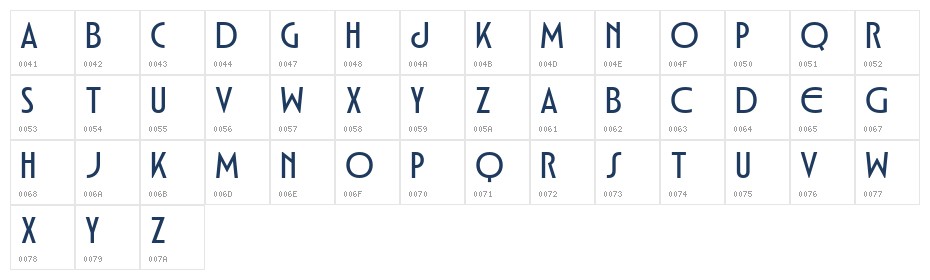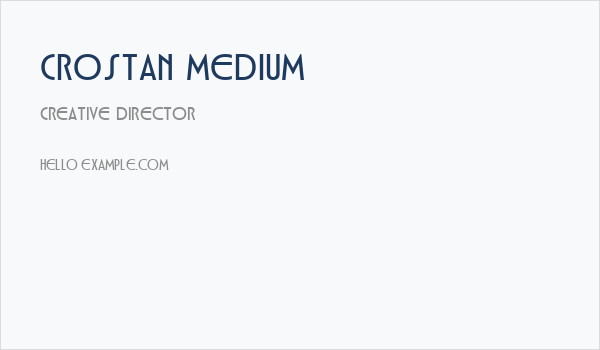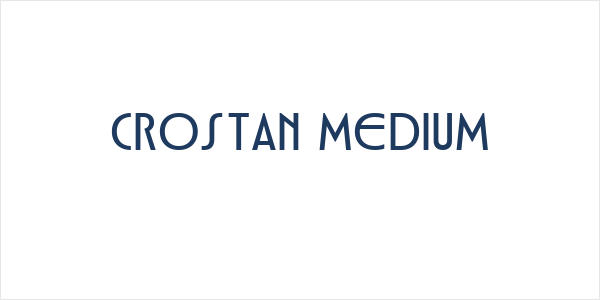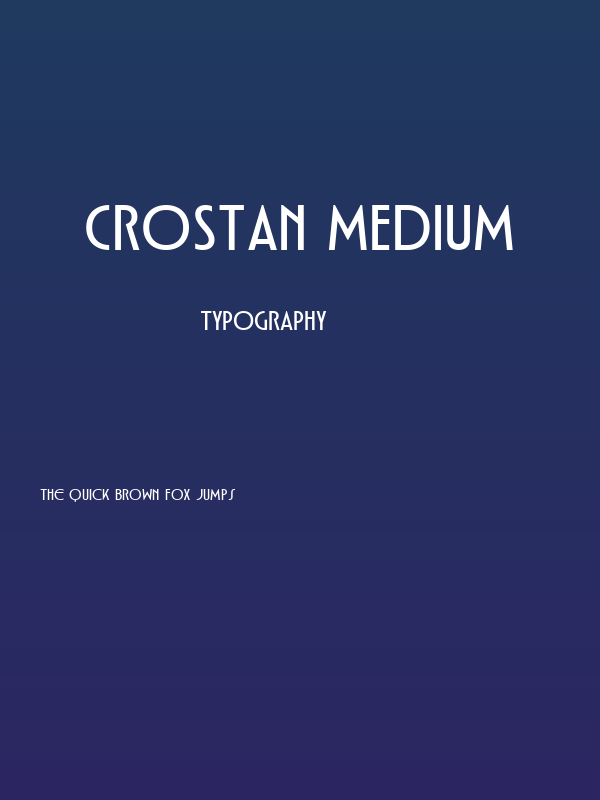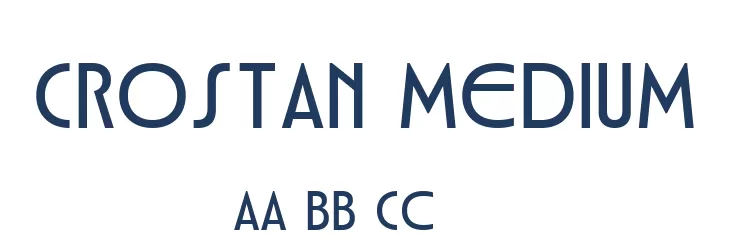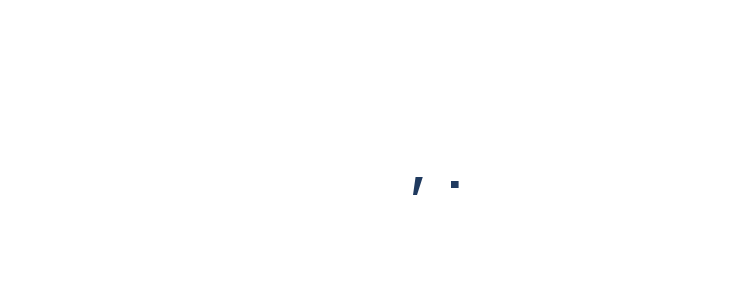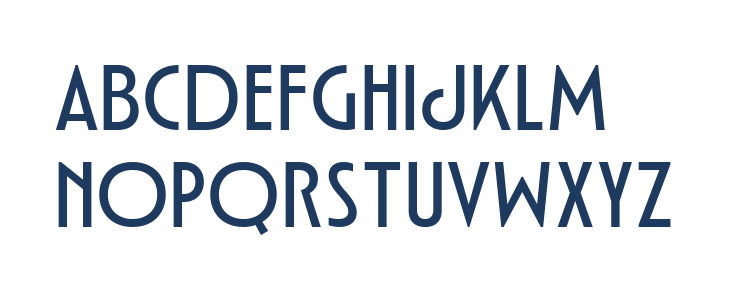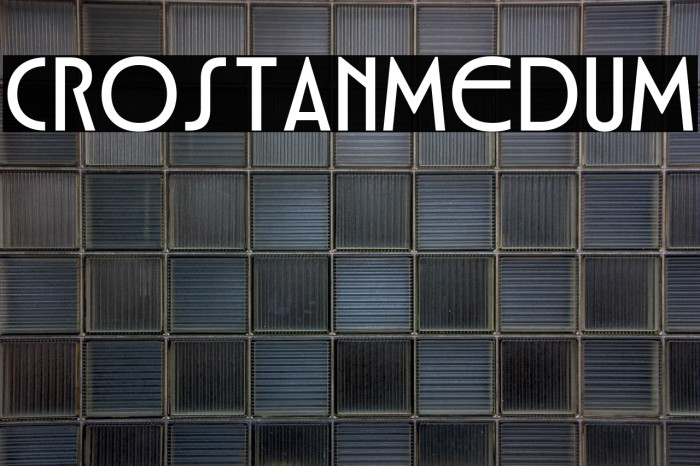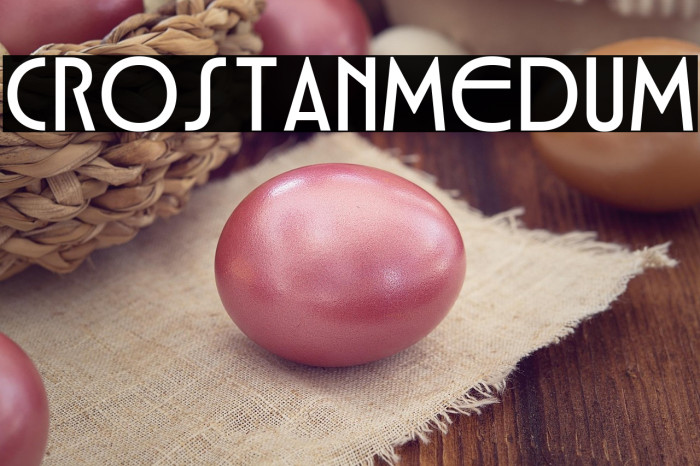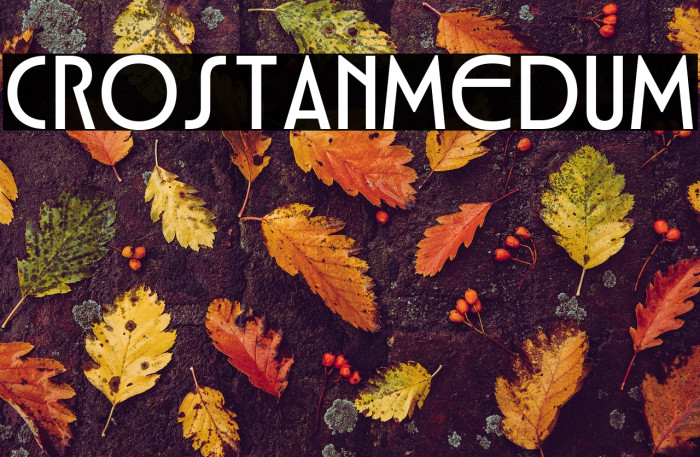
Crostan Medium Font
Crostan Medium Description
A modern, sans-serif font with clean, geometric lines and uniform stroke widths, featuring slightly condensed letterforms.
Crostan
| Overall Style | Modern, Geometric |